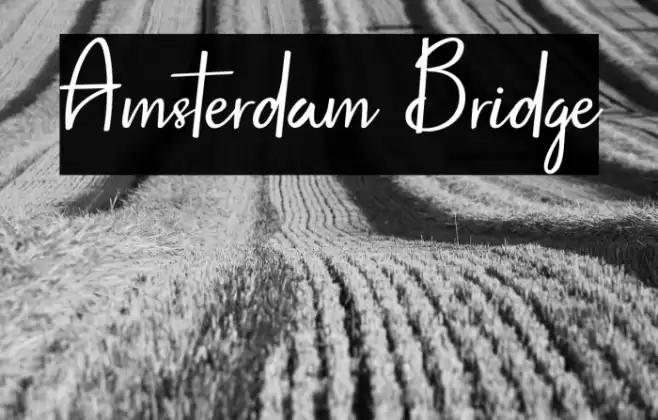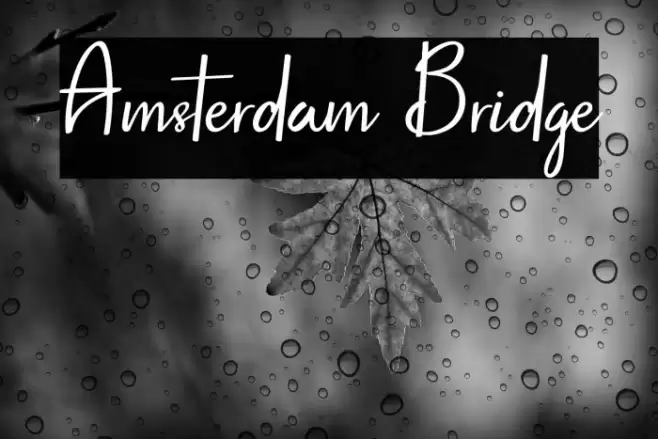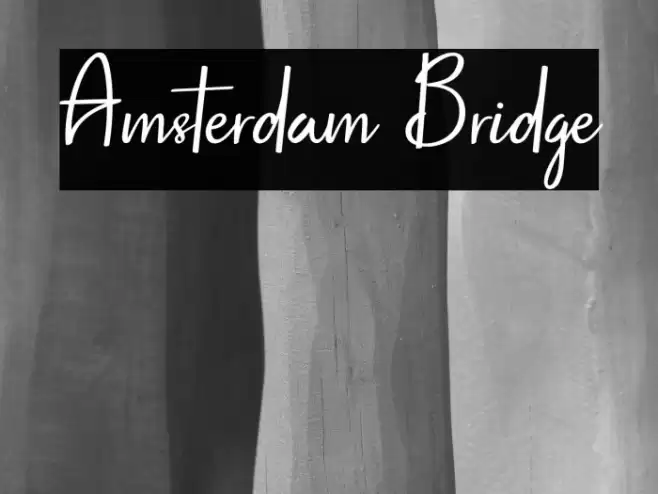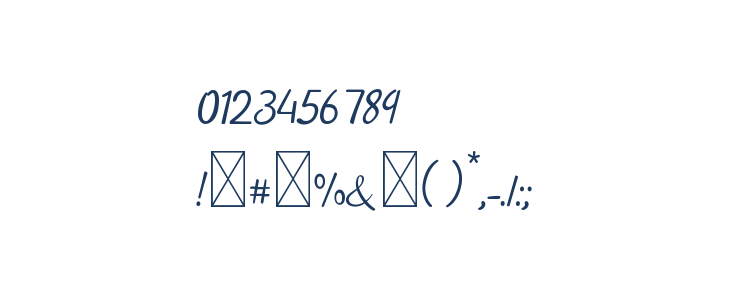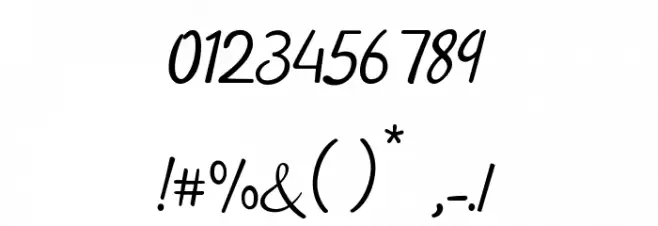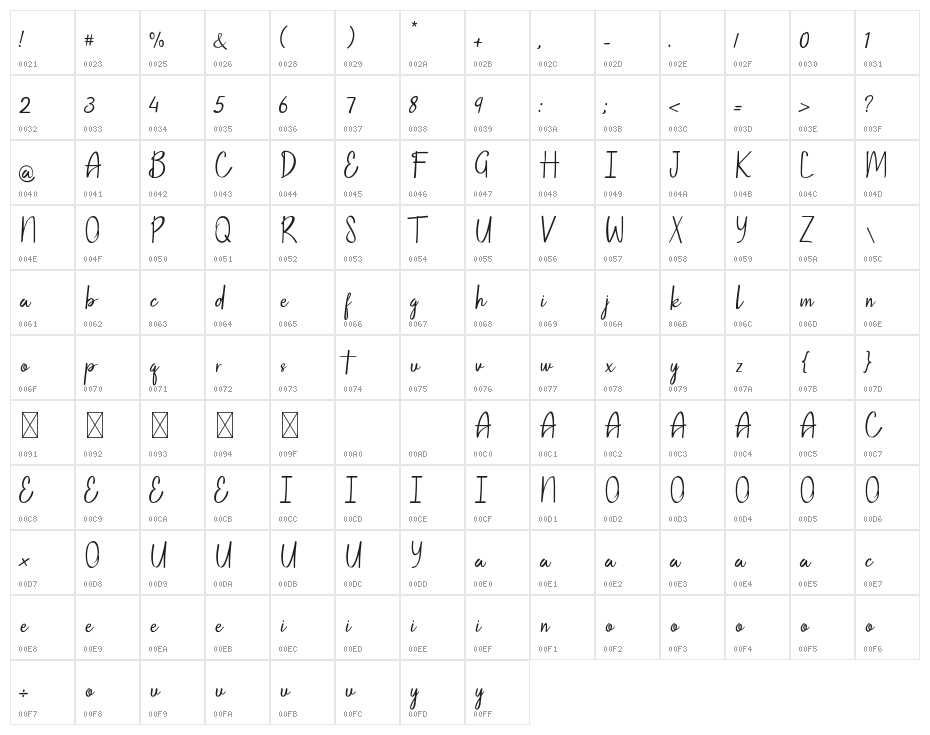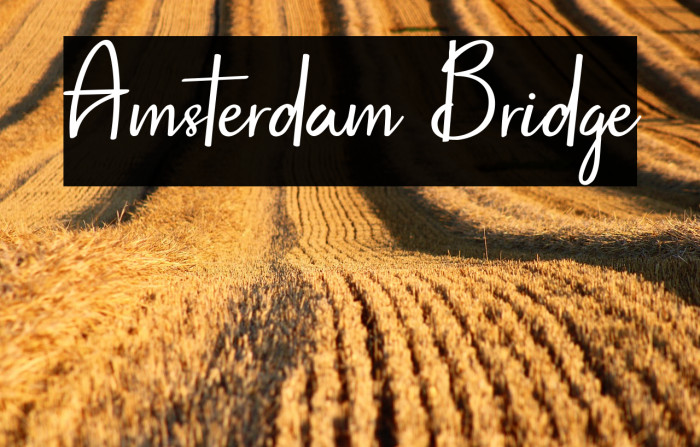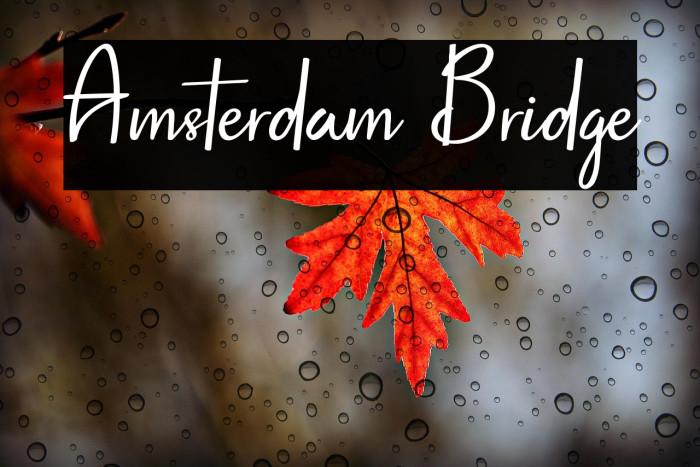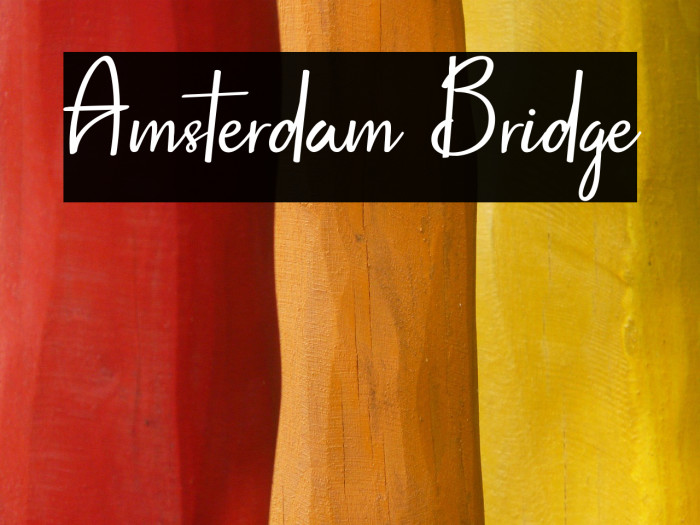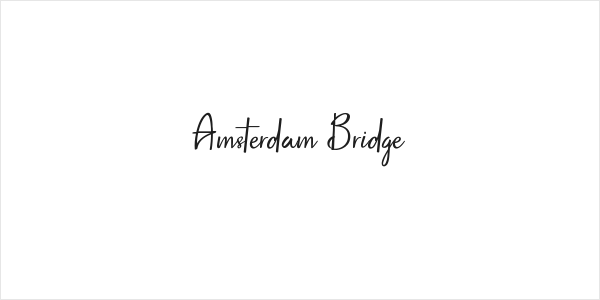
Amsterdam Bridge Font
Amsterdam Bridge Description
This font features a playful and elegant handwritten style, characterized by its fluid and dynamic strokes. The uppercase letters are tall and slender, with a slight slant that adds a sense of movement and grace. The lowercase letters maintain a consistent flow, enhancing readability while retaining a casual charm. Numerals are clear and distinct, matching the overall aesthetic. Special characters are thoughtfully designed, integrating seamlessly with the rest of the set. This font's unique style makes it suitable for creative and expressive projects.
A playful and elegant handwritten font with fluid strokes and dynamic movement from Regular fonts.
- Proposed Projects: Ideal for wedding invitations, greeting cards, branding, and social media graphics.
- Use Case: Logos, Headlines, Invitations